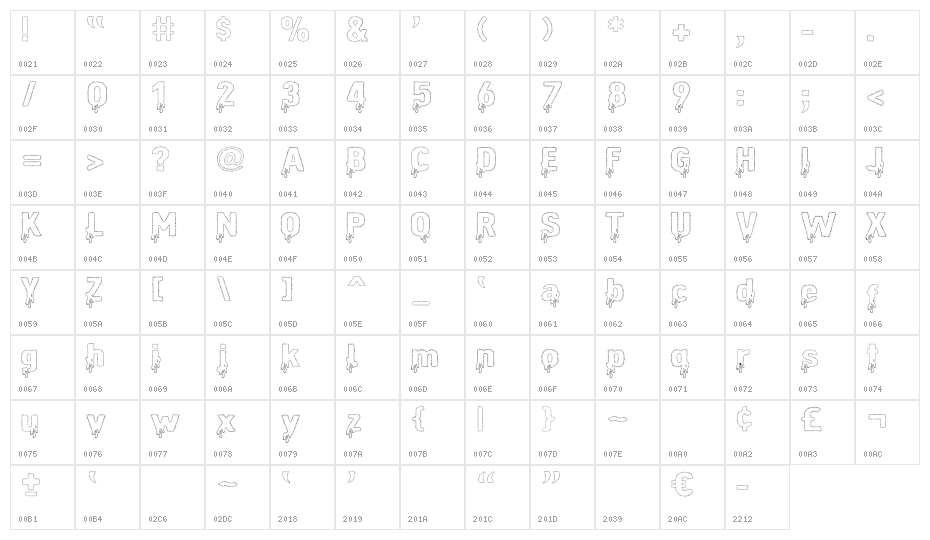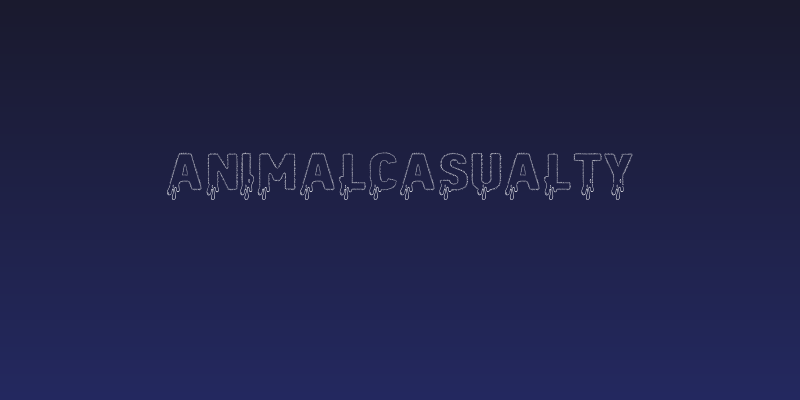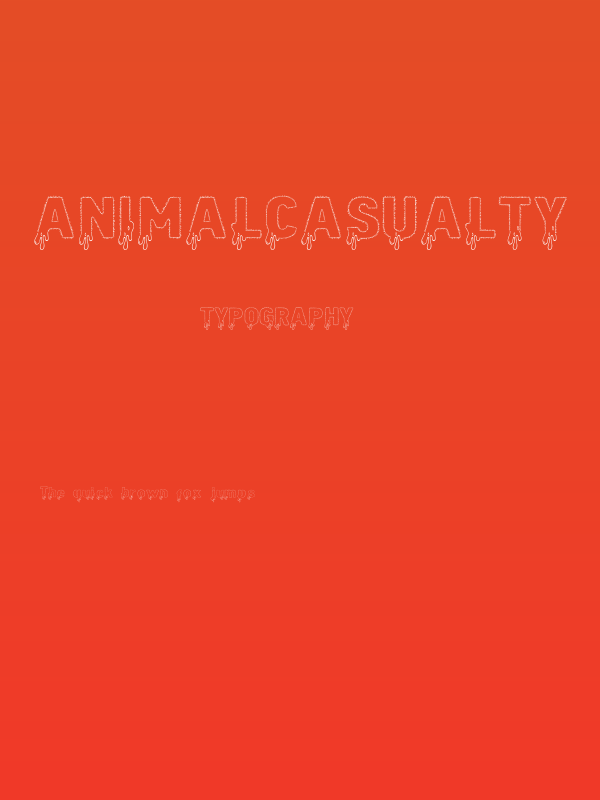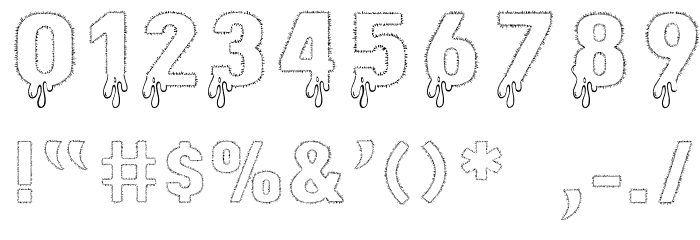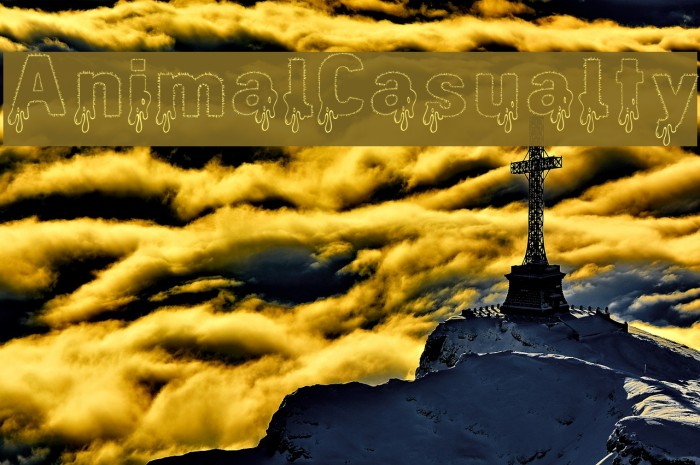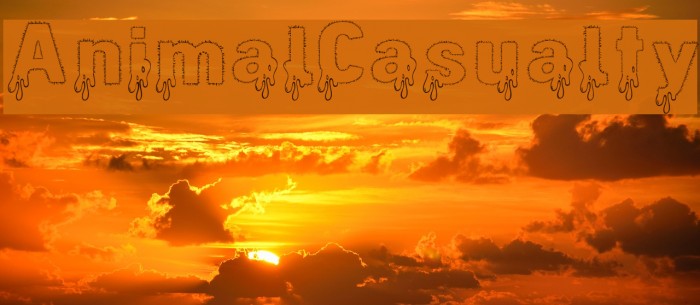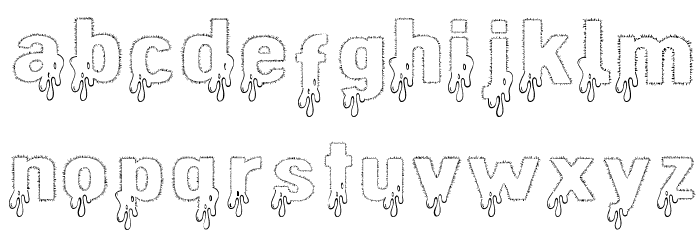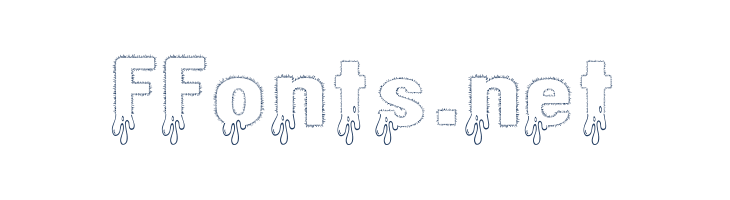
AnimalCasualty Font
AnimalCasualty Description
This font features a unique and playful design with a dripping effect at the bottom of each character, reminiscent of melting or liquid forms. The uppercase and lowercase letters maintain a consistent style, with bold outlines and a slightly rounded shape. The numbers and special characters follow the same theme, ensuring a cohesive look across all elements. This font's distinctive appearance makes it stand out, offering a creative and artistic vibe that can capture attention and add a whimsical touch to any project.